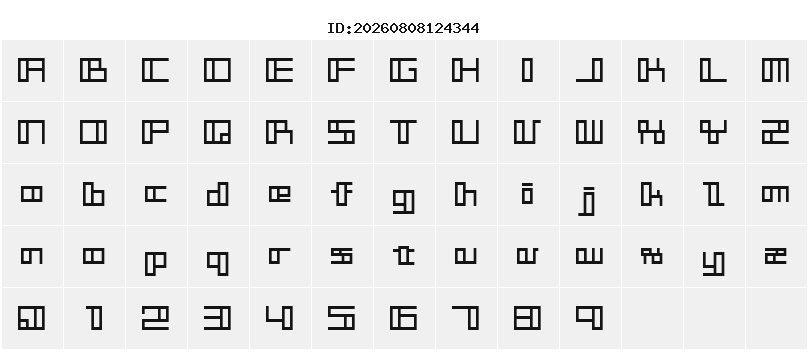
About Pop Tune OutBitA12.ttf
Pop Tune OutBitA12.ttf is a modern, elegant sans-serif font designed for ultimate readability and visual harmony. Perfect for branding, headlines, web design, and print materials.